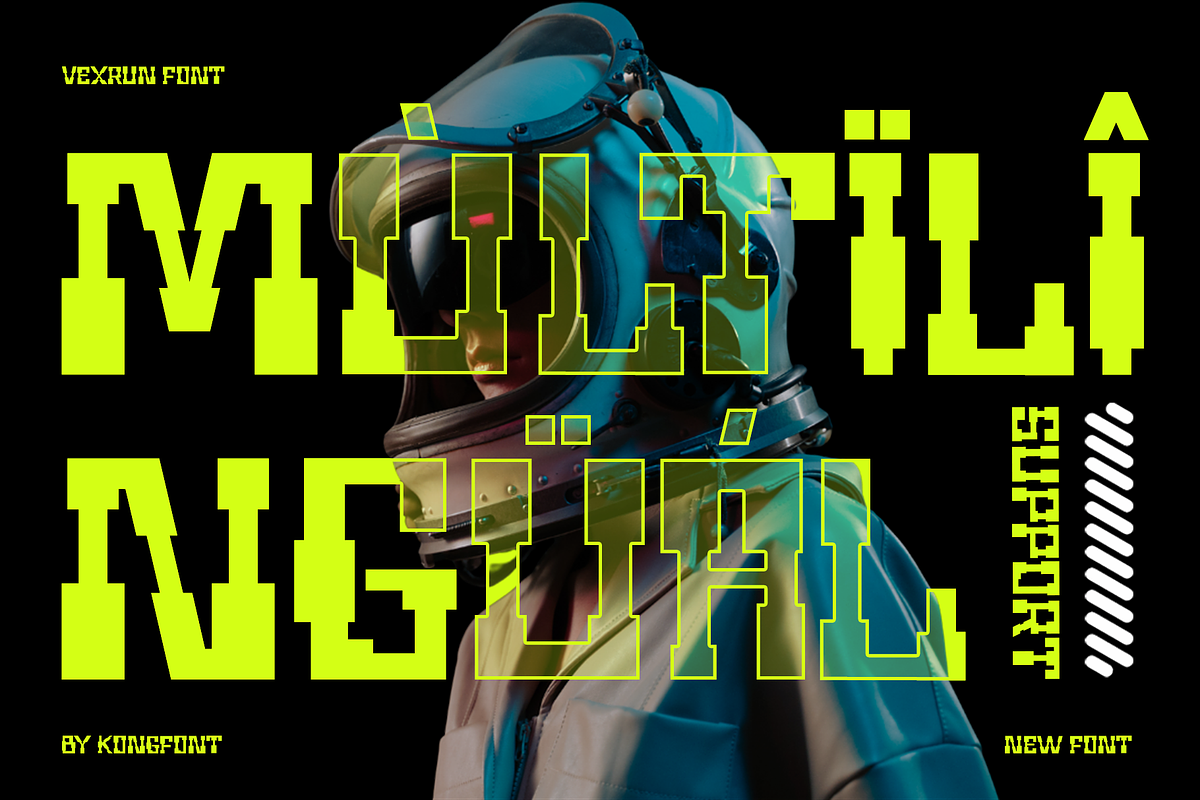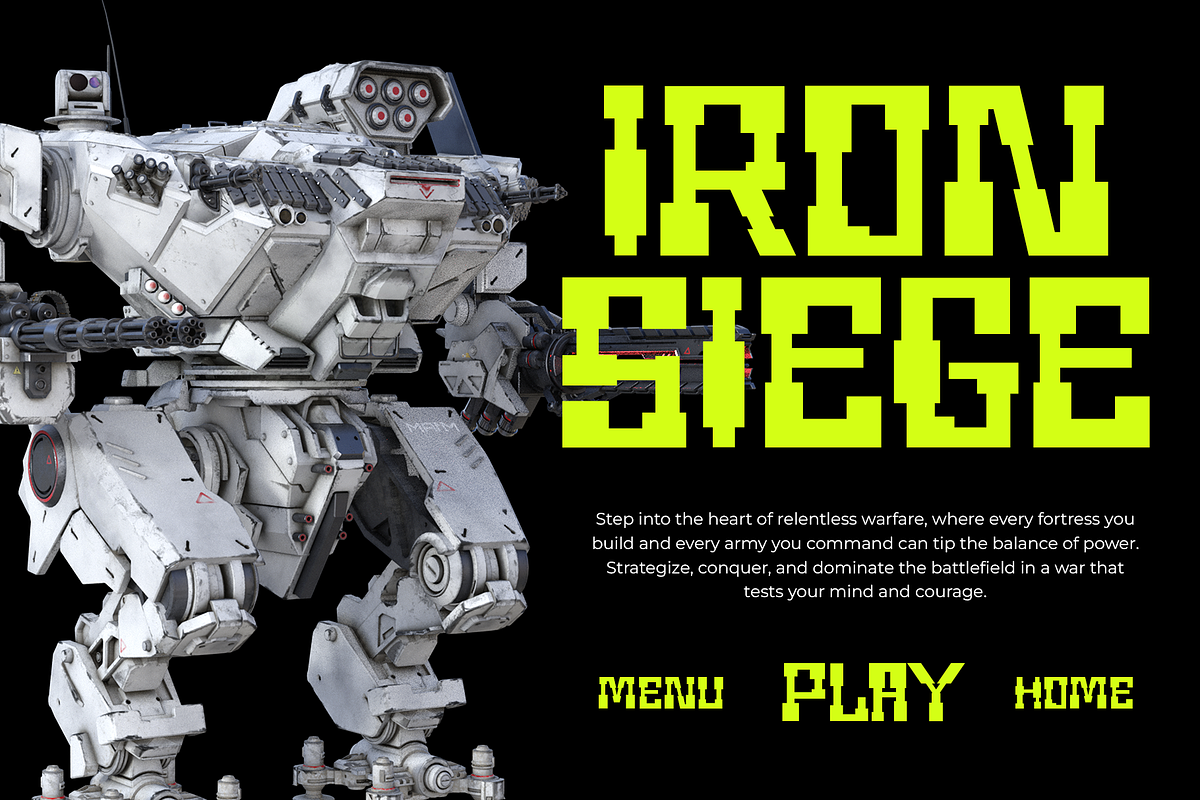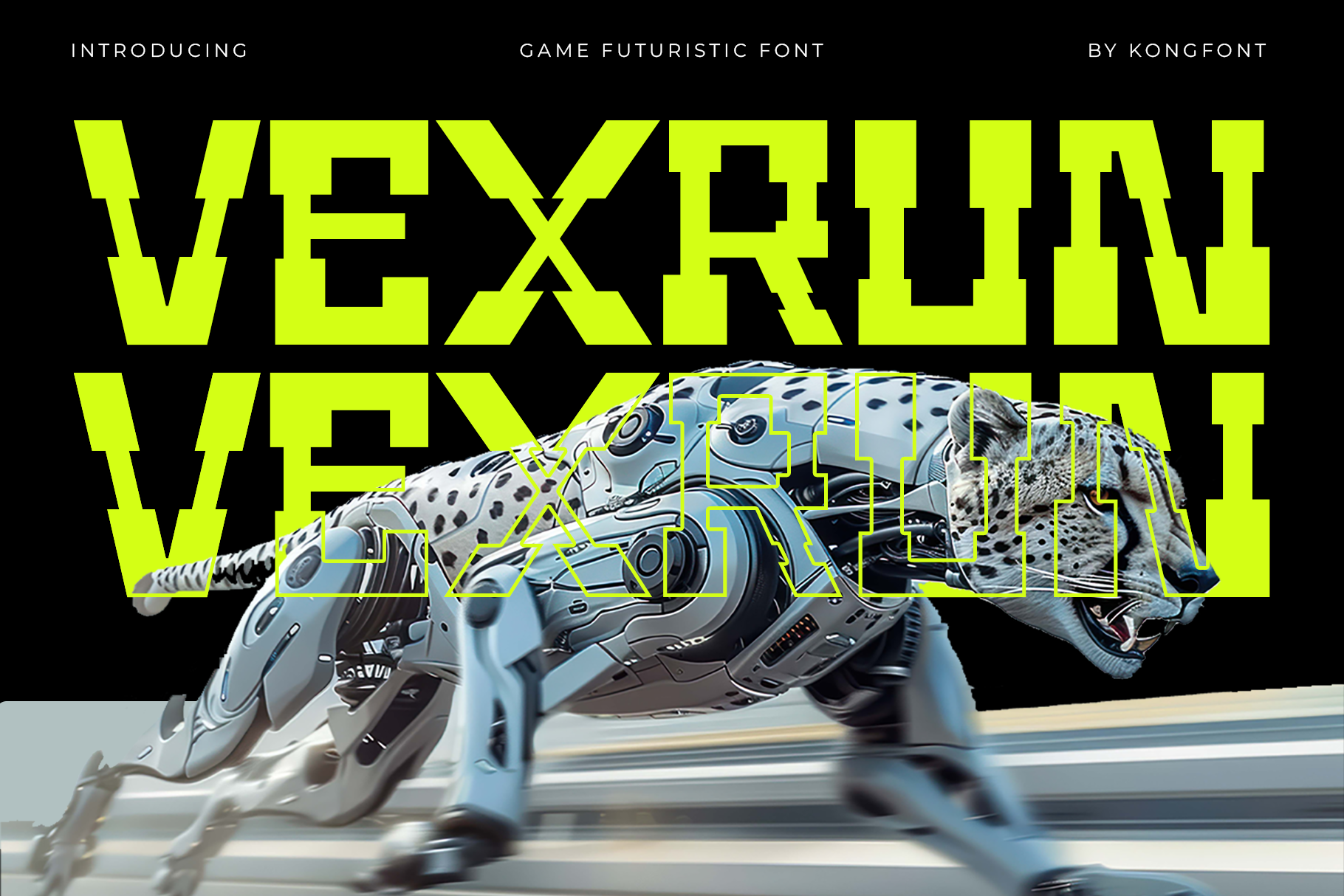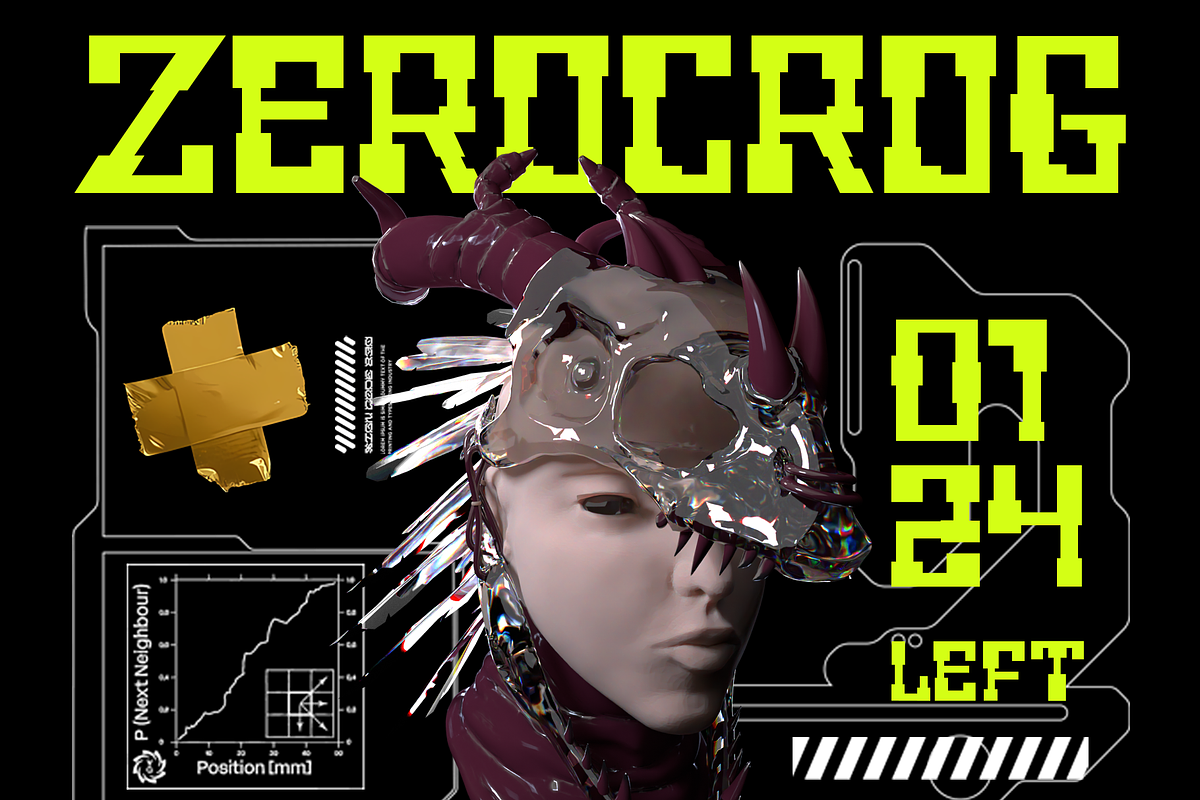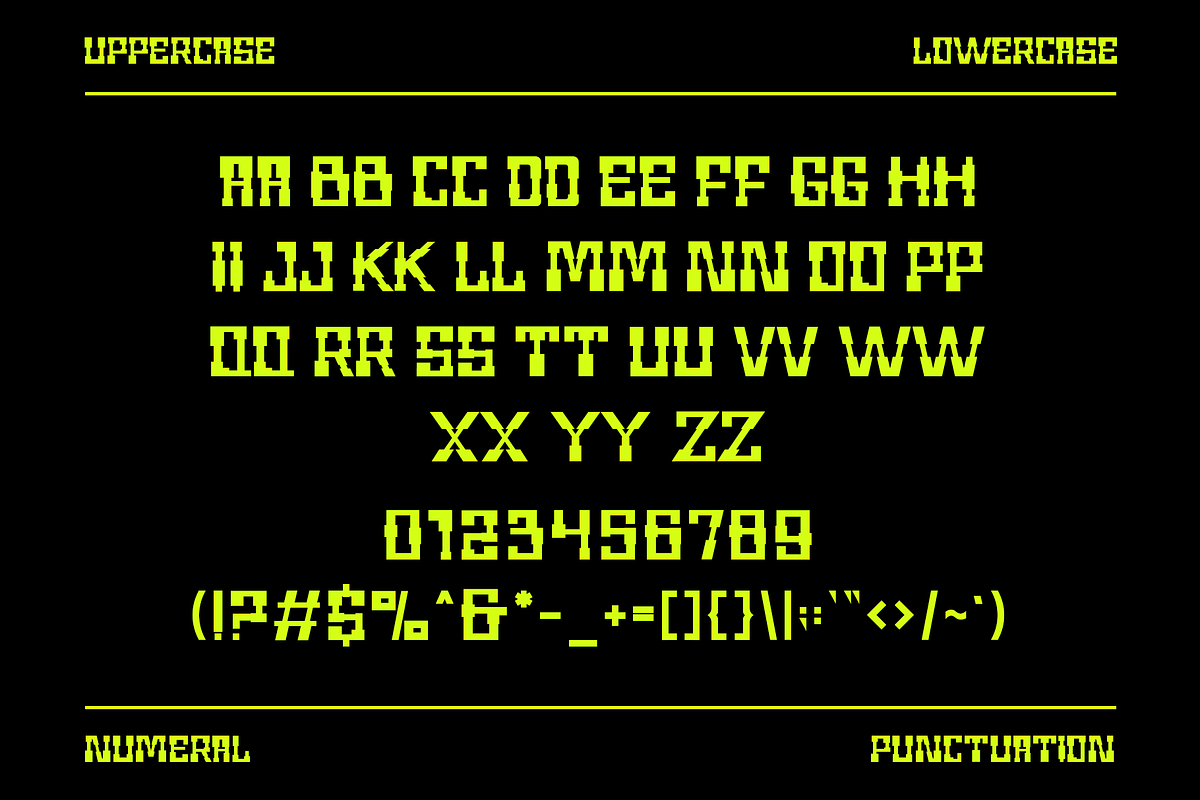
Vexrun – Modern Futuristic Font
Vexrun is a modern futuristic font built for bold, forward thinking designs. Featuring sharp angles, clean geometry, and a high tech visual rhythm, this typeface delivers a strong sci-fi and cyber inspired atmosphere while remaining clear and readable.
Perfect for technology branding, gaming logos, esports designs, sci fi posters, UI displays, music artwork, automotive concepts, and digital products, Vexrun brings a cutting edge feel to any creative project. Its modern structure makes it ideal for headlines, logotypes, and impactful display text that demands attention.